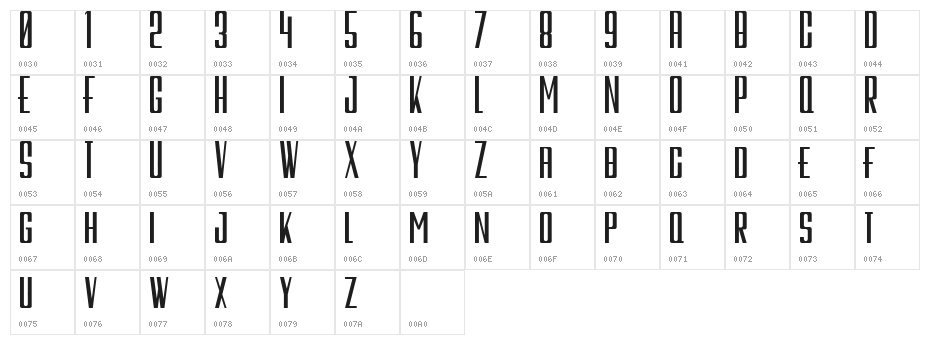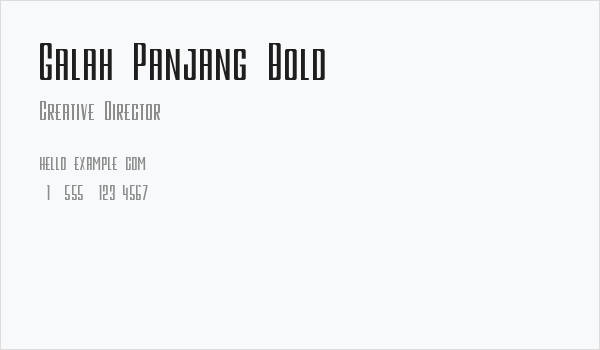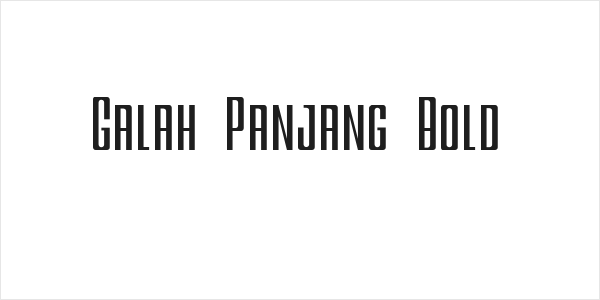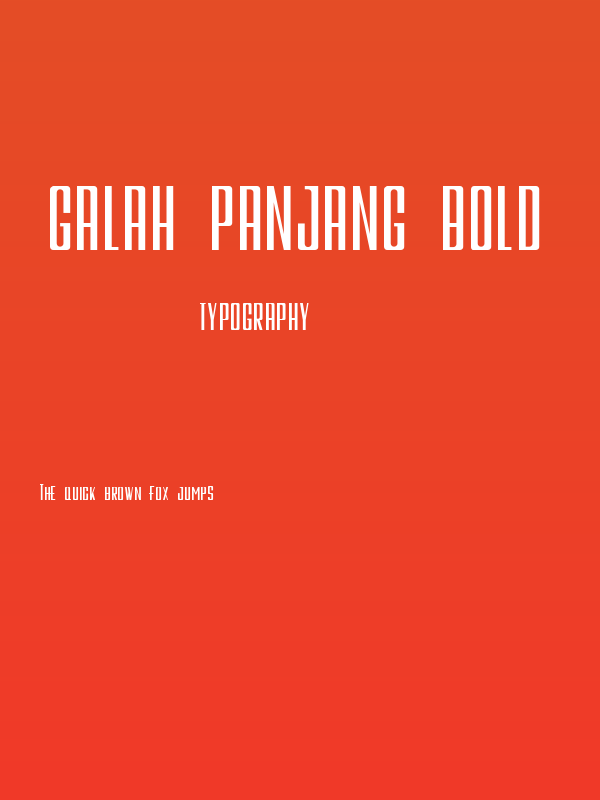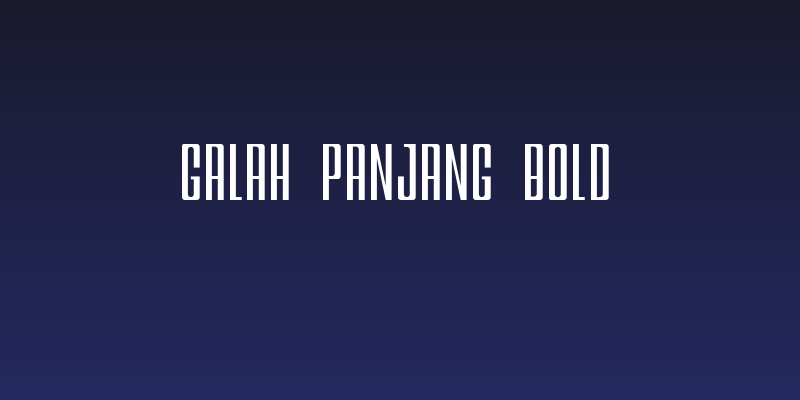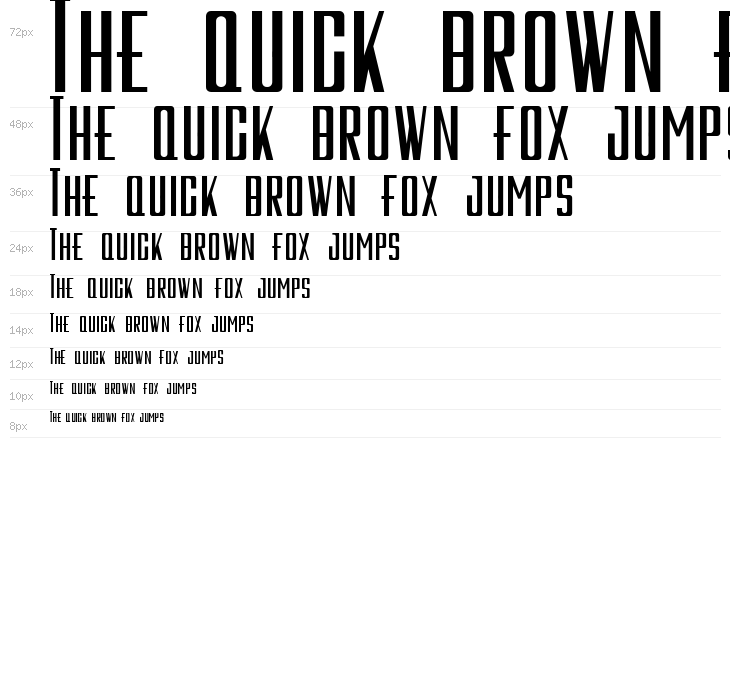
Galah Panjang Bold Font
Galah Panjang Bold Description
This font features a bold and elongated design with a strong vertical emphasis. The characters are tall and narrow, creating a striking and modern appearance. The uppercase letters are particularly prominent, with sharp angles and clean lines that convey a sense of authority and sophistication. The numbers and special characters maintain the same boldness and height, ensuring consistency across all glyphs. The overall style is sleek and contemporary, making it suitable for projects that require a bold statement.
| Proposed Projects | Ideal for headlines, posters, branding, and any design that requires a strong visual impact. |